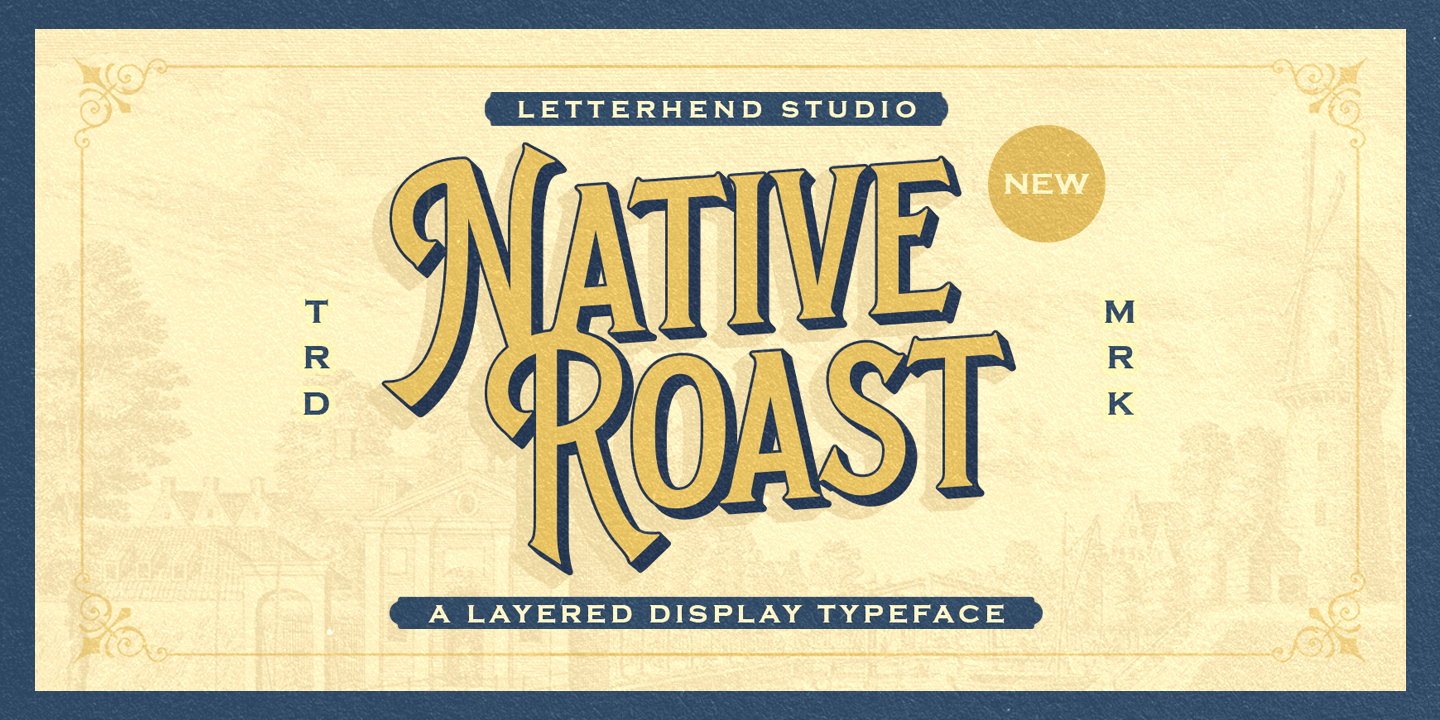
The Native Roast Font is perfect for specialty coffee shop branding, artisanal roastery logos, indigenous cultural event posters, organic food packaging, traditional craft signage, heritage tourism materials, local farmers market graphics, authentic restaurant menus, and cultural preservation project graphics.
What makes the Native Roast Font so exciting is its authentic cultural warmth that perfectly captures the rich heritage and traditional craftsmanship of indigenous communities and artisanal coffee culture. This distinctive typeface embodies the deep-rooted traditions and natural authenticity that defines indigenous artistry, creating an immediate impression of cultural respect and genuine craftsmanship. The font's native character communicates the heritage authenticity and traditional values that culturally-conscious businesses need to connect with customers who appreciate indigenous culture and seek authentic artisanal experiences rooted in traditional knowledge and sustainable practices.
The Native Roast Font family includes Regular weight featuring complete uppercase and lowercase character sets, comprehensive numerical collections, essential punctuation marks, and cultural symbols that maintain the authentic heritage aesthetic throughout your indigenous-inspired and artisanal craftsmanship design projects.
Artisanal coffee roasters and culturally-conscious businesses consistently select Native Roast Font Free Download for projects that require authentic cultural appeal and respectful heritage communication. This exceptional typeface excels in environments where establishing cultural authenticity and traditional craftsmanship credibility is crucial for attracting customers who value indigenous heritage and artisanal quality. The font's native character helps communicate the respect and authenticity that culturally-aware audiences expect from businesses committed to honoring traditional knowledge and supporting indigenous communities.
The distinctive qualities of Native Roast Font reflect the time-honored traditions of indigenous craftsmanship where cultural knowledge, sustainable practices, and community values create authentic products and meaningful cultural experiences. Each character demonstrates the careful attention to tradition and cultural respect that characterizes successful indigenous-inspired businesses and culturally-conscious artisanal enterprises. The font's proportions and spacing create perfect balance between cultural authenticity and contemporary accessibility that modern heritage-focused businesses require for effective cultural communication and respectful market engagement.
Contemporary artisanal enterprises appreciate how Native Roast Font communicates cultural respect and traditional authenticity. Whether designing materials for specialty coffee roasters, creating branding for indigenous art galleries, or developing marketing for cultural heritage experiences, this font delivers the respectful character that distinguishes authentic cultural appreciation from superficial appropriation. The typeface works exceptionally well for businesses emphasizing traditional methods, cultural respect, and the authentic appeal of indigenous-inspired craftsmanship and heritage-based artisanal quality.
The versatility of Native Roast Font extends across multiple cultural applications and heritage marketing initiatives. Coffee roasters utilize its authentic character for bean packaging and cultural storytelling materials that honor traditional coffee cultivation methods. Indigenous artisans choose it to communicate their commitment to preserving traditional crafts and cultural knowledge. Cultural centers rely on its respectful appearance to promote educational programs and authentic cultural experiences that honor indigenous heritage.
Digital heritage platforms benefit from Native Roast Font's optimized performance across various cultural applications and heritage communication channels. The font maintains its native character whether displayed on cultural websites, mobile heritage apps, or digital cultural preservation projects. This technical reliability ensures consistent brand presentation across all cultural communication platforms and heritage engagement scenarios.
The emotional impact of Native Roast Font resonates with audiences who appreciate cultural diversity and seek authentic connections to indigenous heritage and traditional craftsmanship. The typeface serves as a visual bridge to cultural understanding and traditional knowledge that helps heritage-focused businesses build meaningful relationships with customers who value cultural authenticity and indigenous wisdom. This connection to cultural respect and traditional authenticity makes it invaluable for establishing credible heritage-based brand identities.
Cultural marketing specialists and heritage design professionals recognize Native Roast Font as an essential tool for respectful cultural branding. The font captures the essence of indigenous heritage while making cultural appreciation accessible to contemporary businesses who want to communicate their commitment to cultural respect, traditional authenticity, and the preservation of indigenous knowledge in today's culturally-conscious marketplace.